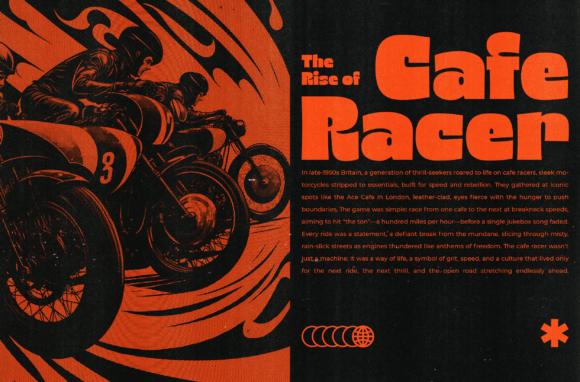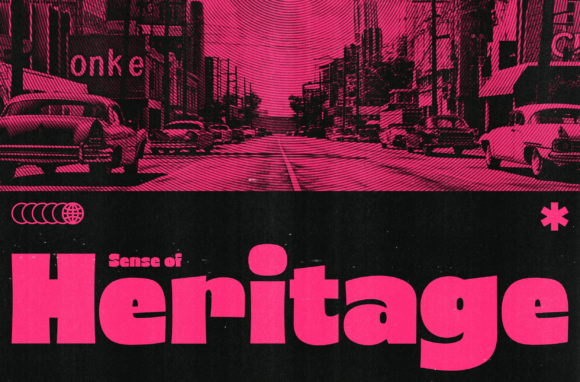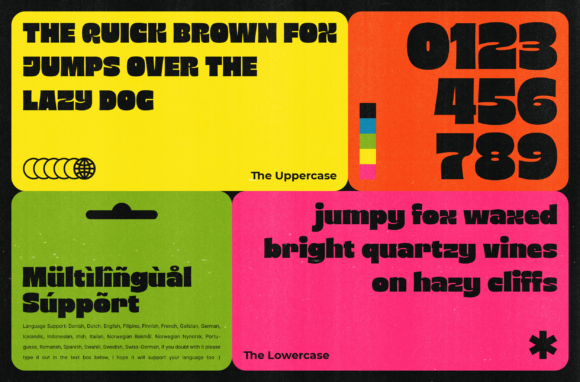
Unleash Your Creativity with Kradix Font
Have you ever found yourself rummaging through a thrift store, searching for that perfect vintage poster or magazine to inspire your next creative project? The thrill of discovery is exhilarating, and it’s moments like these that spark the imagination. For designers, the quest for the perfect design resource is a constant one. That’s why we’re excited to introduce the Kradix Font – a game-changing addition to your design arsenal.
Kradix Font is more than just a font; it’s a statement piece that combines the bold visuals of retro movies with a contemporary twist. With its striking versatility and iconic retro feel, this font is perfect for designers who crave bold, expressive typography. Whether you’re working on a poster, branding, packaging, or more, Kradix Font is sure to redefine the way you see retro fonts.
Key Features of Kradix Font
Honest Review: Kradix Font
As a designer, I’m always on the lookout for high-quality design resources to elevate my creative projects. The Kradix Font is a recent discovery that’s caught my attention. I’m excited to share my honest review with you.
- ✨ Beautiful, modern aesthetic that’s perfect for digital projects
- ✨ High-quality glyphs that are crisp and clear
However, I do have some reservations:
- ⚠️ Limited character set, which may be a challenge for projects that require a wide range of characters
Overall, the Kradix Font is a solid addition to any designer’s toolkit. While it may not be perfect, its high-quality glyphs and modern aesthetic make it a great choice for digital projects. With a little creativity and resourcefulness, I think designers can work around its limitations and create some amazing work with this font.
The Kradix Font is a versatile design resource that can be used in a variety of creative projects, including logos, business cards, and brochures. It’s also great for use in presentations and documents where a high-quality, transparent background is required.